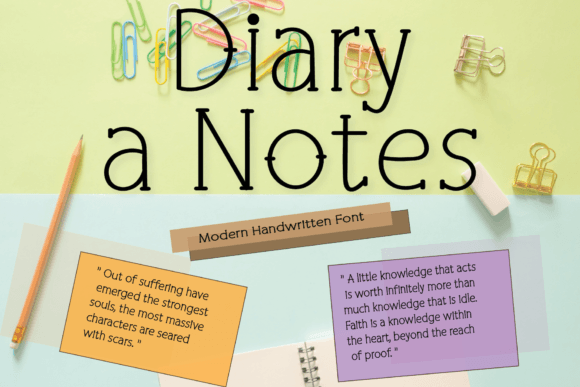
Embark on an enchanting journey into the world of typography with Diary a Notes, the captivating serif font family that radiates happiness and joy. Created by the ingenious hl_studio, Diary a Notes Font is an extraordinary font style that will transform your designs into vibrant expressions of your imagination.
Immerse yourself in a symphony of letters that resonate with the spirit of celebration and new beginnings. Diary a Notes Font is the perfect font for designing jubilant greeting cards that convey heartfelt sentiments and spread warmth. Let your business cards radiate charm and sophistication, leaving a lasting impression on your clients. Design logos that exude a sense of playfulness and happiness, attracting customers like moths to a flame.
With Diary a Notes Font, your product packaging will come alive, bursting with energy and excitement. Create eye-catching advertisements that captivate audiences and leave them yearning for more. Transform ordinary quotes into works of art, inspiring and uplifting your readers. Unleash your creativity and infuse your designs with an infectious cheerfulness that will spread like wildfire.
Diary a Notes Font is not just a font; it's an experience. A gateway to a world where creativity blooms, and imagination runs wild. It's the perfect choice for adding a dash of happiness to any project, whether it's a personal note to a loved one or a grand marketing campaign.
So, why settle for ordinary when you can embrace the extraordinary? Download Diary a Notes Font today and let your designs dance with joy. Embrace the power of positive typography and witness the transformation of your creative vision into a masterpiece that radiates happiness and captures hearts.